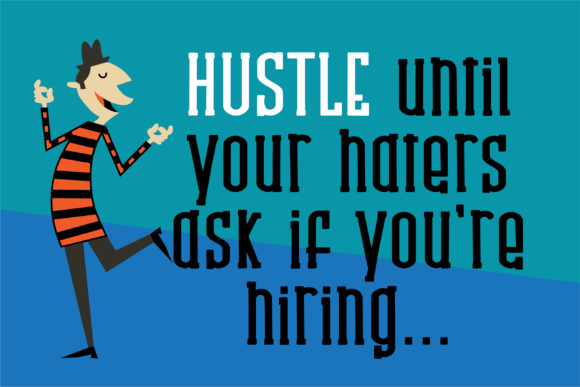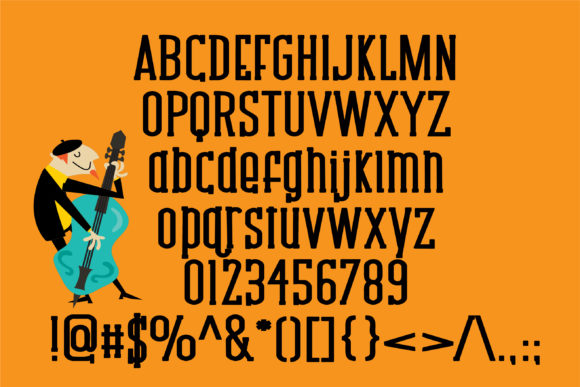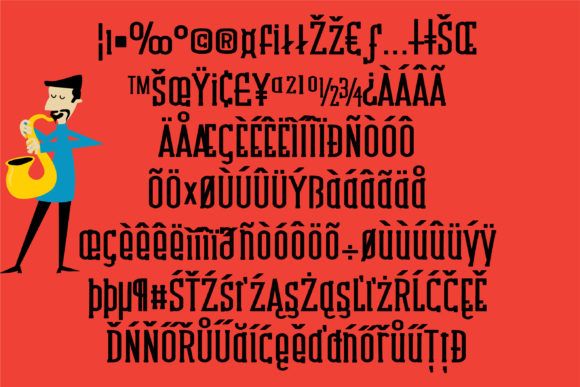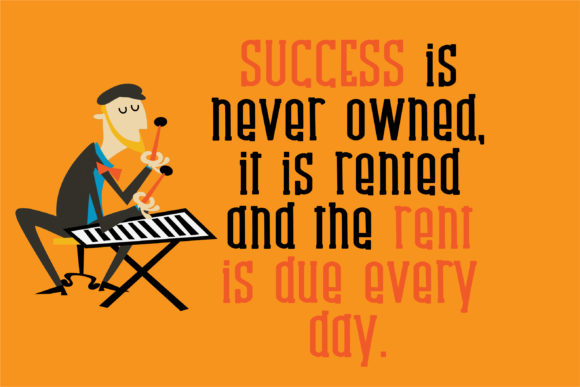
Introduction to Hustle Timely Font
This serif font is a modern, hip font that can be used for titles, posters, headings as well as journaling and letter writing.
Key Features of Hustle Timely Font
Why Choose Hustle Timely Font?
Hustle Timely Font offers exceptional quality and versatility, making it a valuable addition to your design toolkit. Whether you’re creating for personal projects or commercial use, Hustle Timely Font delivers professional results.